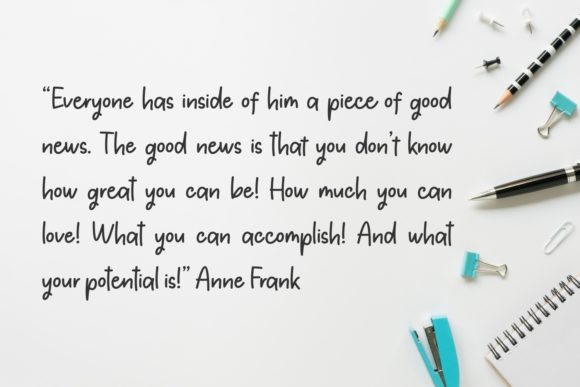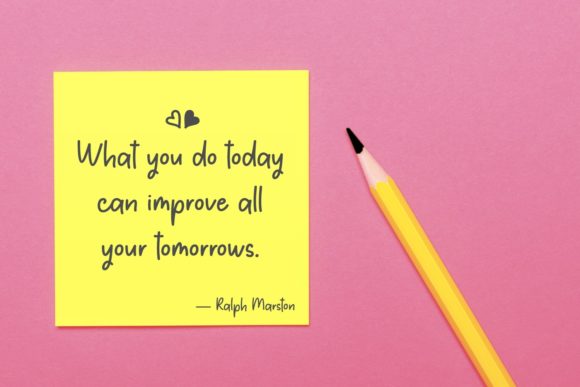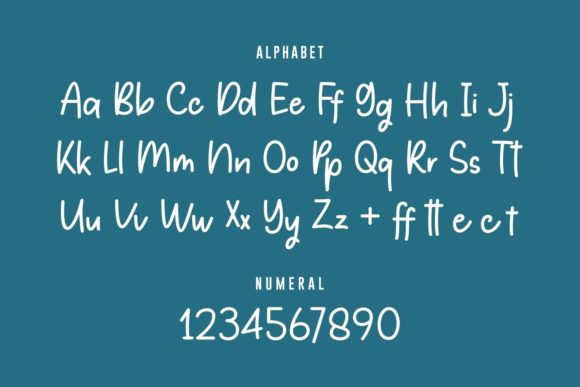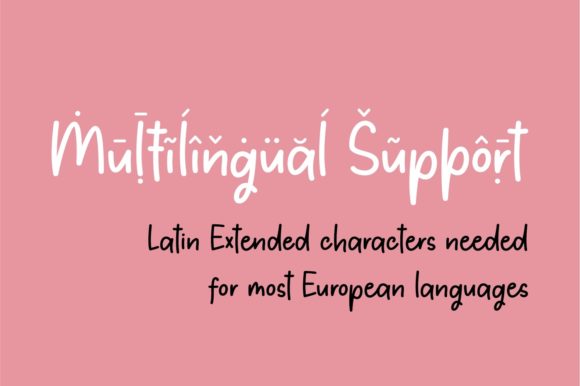
Introduction to Romantic Soul Font
Have you ever found yourself lost in the perfect combination of typography and design, only to realize that it’s missing that special something to elevate it to the next level? I know I have! As designers, we’re always on the lookout for that one design resource that can add a touch of magic to our creative projects.
That’s where the Romantic Soul Font comes in – a beautiful, elegant script that exudes romance and sophistication. With its free download available, this high-quality font is perfect for designers who want to add that special enchanting touch to their designs without breaking the bank.
Whether you’re working on a wedding invitation, a romantic blog post, or a design project that requires a touch of whimsy, the Romantic Soul Font is an excellent choice. Its transparent background makes it easy to layer and manipulate, and its high-quality design ensures that it will look stunning on any background.
Key Features of Romantic Soul Font
- Unique, hand-drawn design with a touch of elegance, perfect for creative projects and romantic themes.
- High-quality font with transparent background, ideal for use on various design elements, such as invitations, cards, and more.
- Includes a wide range of characters, including uppercase and lowercase letters, numbers, and special symbols, for a comprehensive design resource.
- Perfect for designers, artists, and crafters working on romantic-themed projects, weddings, and other special occasions.
Honest Review: Romantic Soul Font
I recently stumbled upon the Romantic Soul Font and was excited to give it a try in my latest creative project. Overall, I’m impressed with this beautiful, high-quality font.
Here’s what works well: ✨ The Romantic Soul Font is incredibly versatile and can be used in a variety of design projects, from wedding invitations to blog headers. It’s also available for free download, making it an amazing design resource for anyone on a budget. I love how it comes with a transparent background, allowing me to easily customize my designs.
As with any font, there are some limitations: ⚠️ The Romantic Soul Font can be a bit difficult to read in smaller sizes, and it may not be the best choice for body text. Additionally, the font file size is a bit larger than I’d like, which can impact load times.
Overall, I’m really happy with the Romantic Soul Font and would highly recommend it for any creative project. It’s a beautiful, high-quality design resource that’s perfect for adding a touch of elegance to your designs.
Here are some key features of the Romantic Soul Font:
- High-quality, beautiful design
- Perfect for wedding invitations, blog headers, and more
- Available in a variety of weights and styles
How to Use Romantic Soul Font
Customizing and Editing
Tips for Getting the Most Out of Romantic Soul Font
Experiment with different font sizes and styles to create a unique visual identity. Use the font in combination with other design elements to add depth and texture to your project. Consider using the font in a minimalist design to let the elegance of the font shine through.
The Romantic Soul Font is ideal for wedding invitations, engagement announcements, and other romantic-themed projects. It’s also perfect for branding and marketing materials that require a touch of sophistication and elegance.
Alternatives to Romantic Soul Font
1. Amatic SC
Amatic SC is a free, high-quality font perfect for creative projects. It features a transparent background, making it ideal for use on light-colored backgrounds. When to use: headings, titles, and short paragraphs. It compares to Romantic Soul Font in its elegant and vintage feel, but with a more modern twist.
Great Vibes is a beautiful, handwritten font ideal for design projects that require a touch of romance. It’s available for free download and features a high-quality design. When to use: quotes, lyrics, and creative titles. It compares to Romantic Soul Font in its flowing, cursive style, but with a more playful feel.